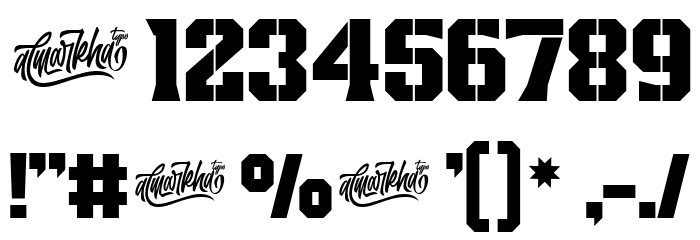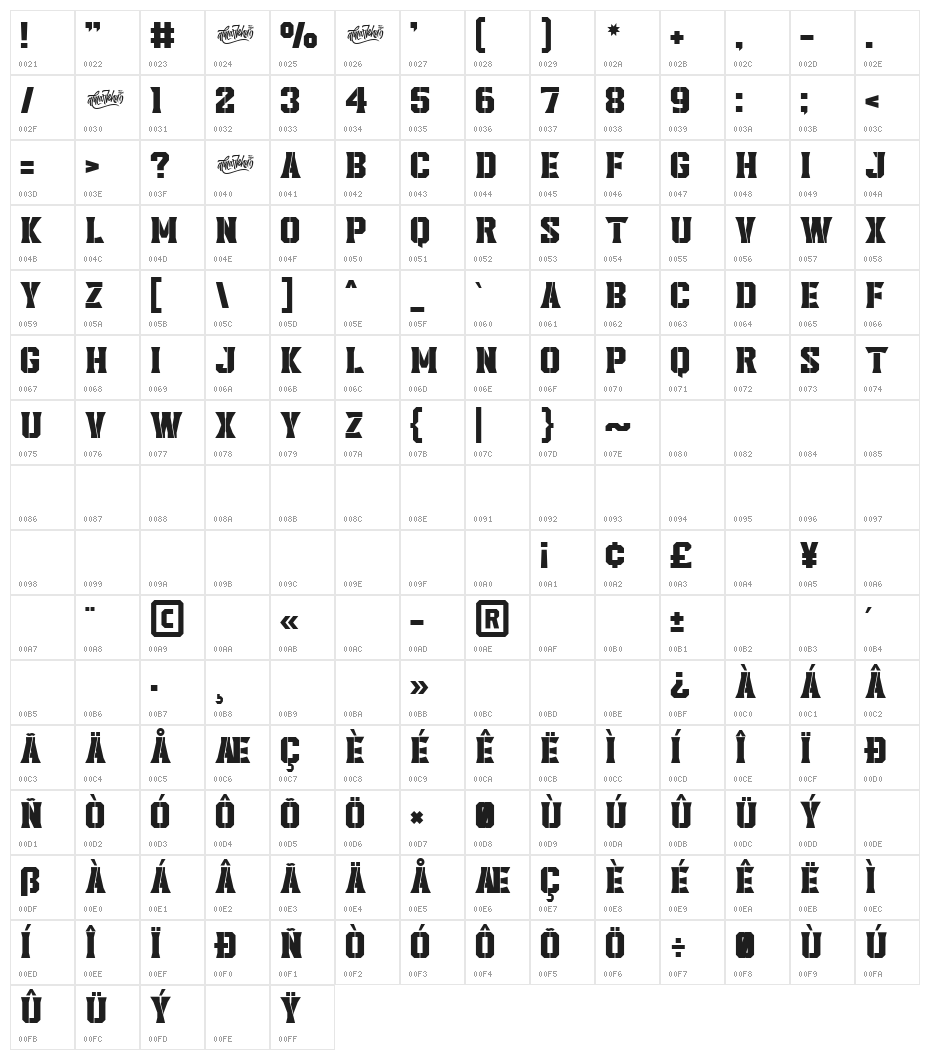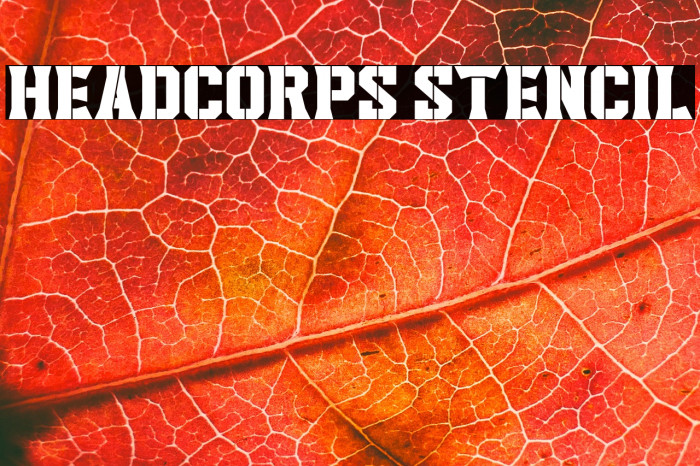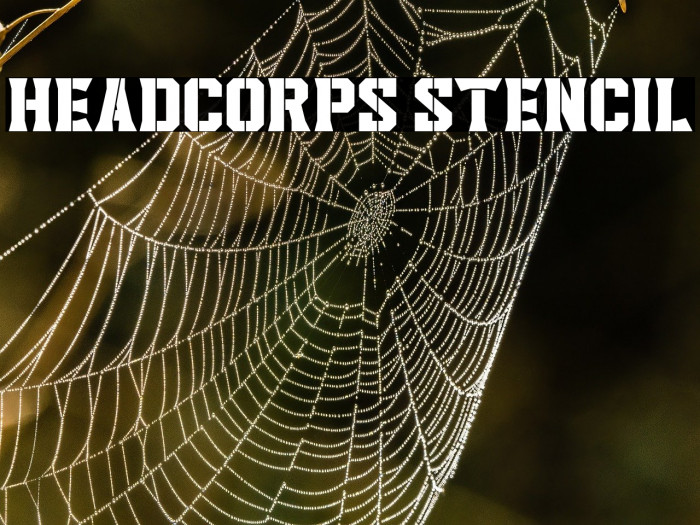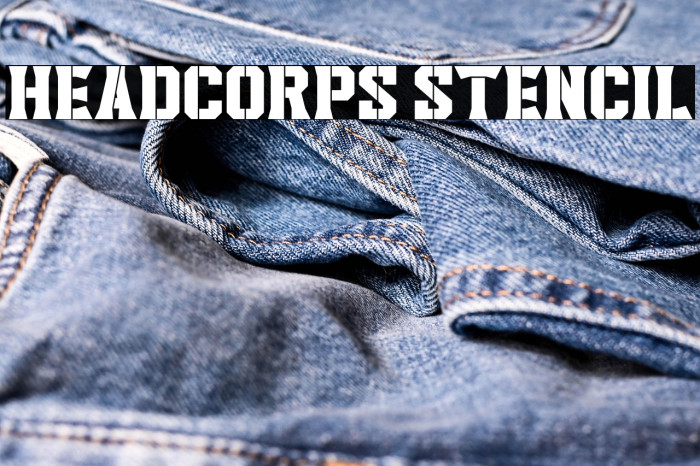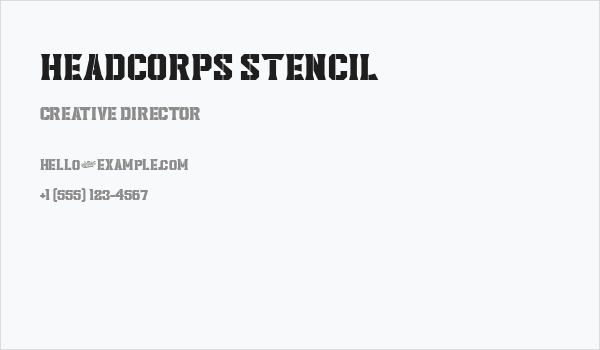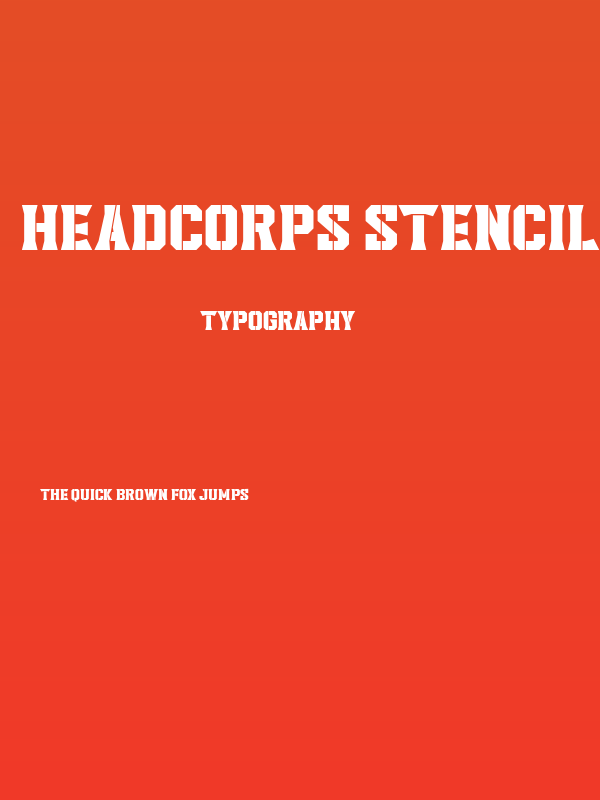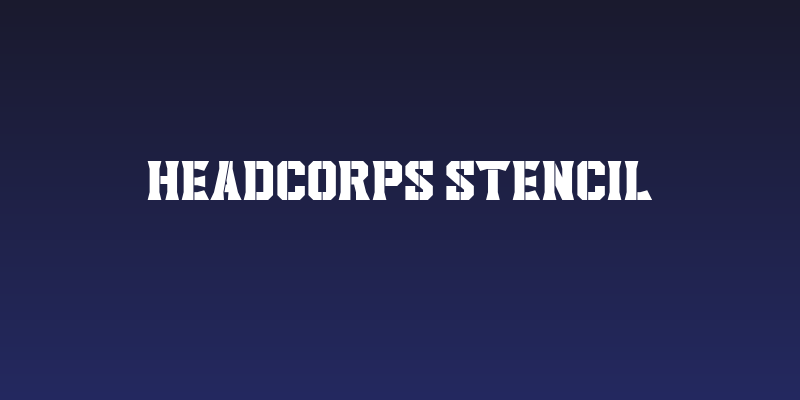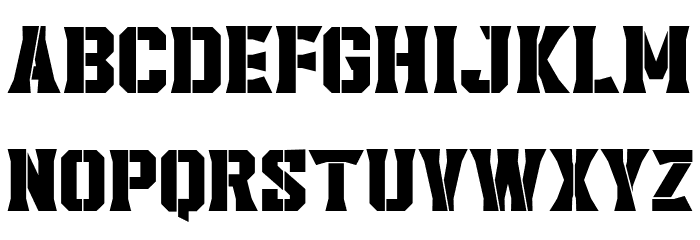
Headcorps Stencil Font
Headcorps Stencil Description
This font features a bold, stencil-like design with strong geometric shapes and sharp angles. The uppercase letters are particularly striking, with a military-inspired aesthetic that suggests strength and authority. The characters are well-defined with consistent thickness, creating a uniform appearance across the alphabet. The numbers and special characters follow the same bold, angular style, ensuring cohesion throughout the typeface. This font's distinct cut-out sections give it a rugged, industrial feel, making it ideal for impactful designs.
Overall StyleModern, Industrial
Proposed ProjectsIdeal for use in posters, logos, branding, and any design requiring a strong, authoritative presence.